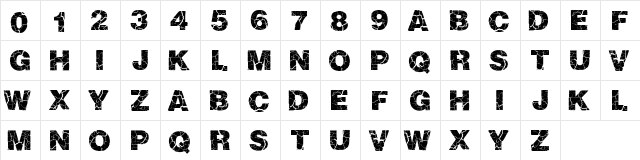
Crackvetica Regular
Design Context for Crackvetica Typeface
Crackvetica takes a measured approach to typography — its balanced proportions and neutral character make it a reliable workhorse for both digital and print work.